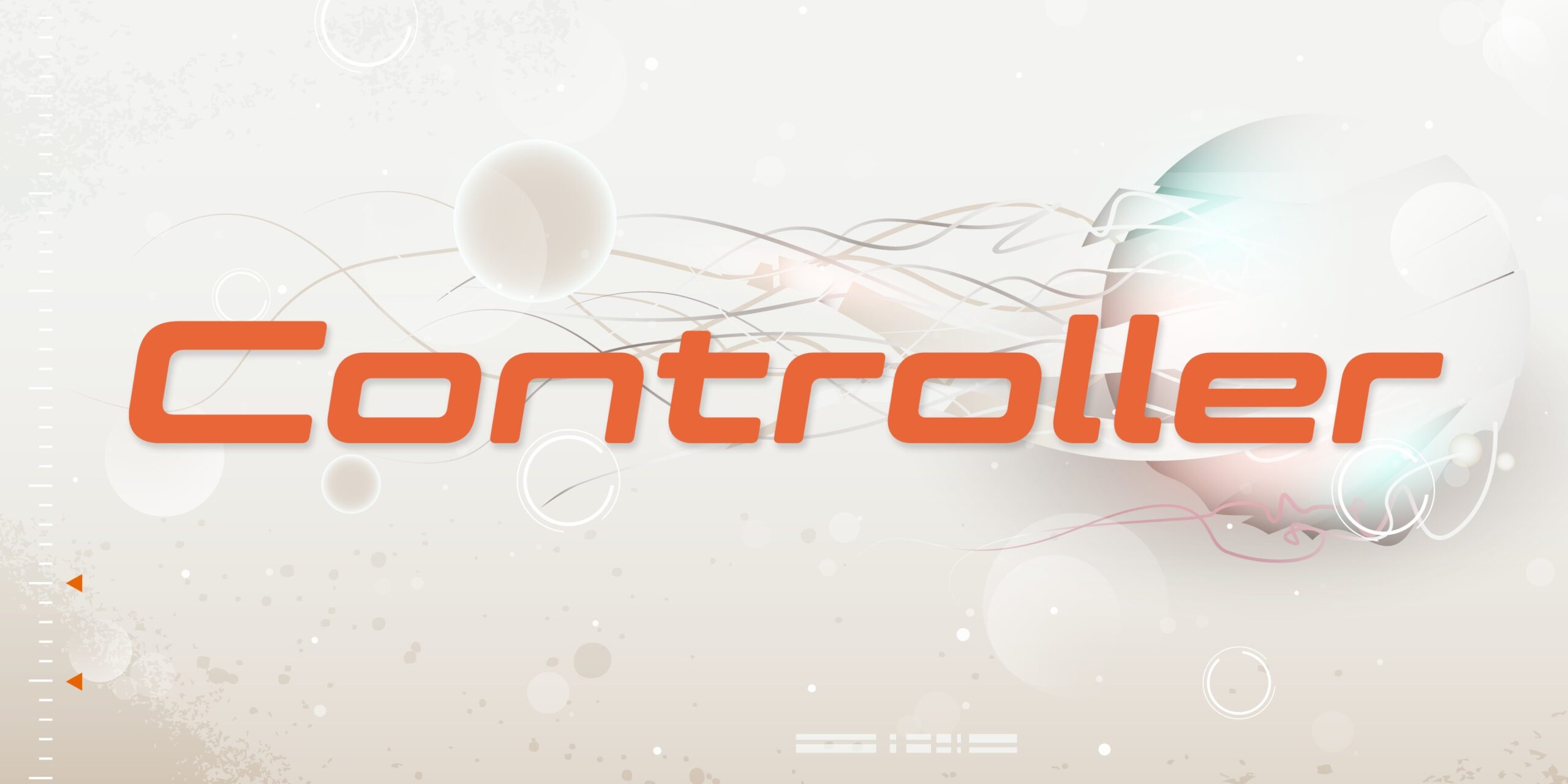
Controller Font Family
Controller Font Family is a stylish typeface that enhances visual appeal and works effortlessly in many design contexts. Controller is a geometric rounded sans-serif typeface featuring 5 weights with matching obliques, along with extended styles for added versatility.
Originally inspired by the blend of techno and organic design trends from the late 20th-century West Coast, Controller combines precise geometric structure with subtle rounding to create a look that is both modern and warm—balancing the mechanical with the human touch.
An alternate uppercase “N” is available via the OpenType stylistic feature, allowing for greater typographic customization.
With its clean, approachable forms, Controller is a versatile and practical font family suitable for a wide range of creative applications—from branding and UI to editorial and motion graphics.